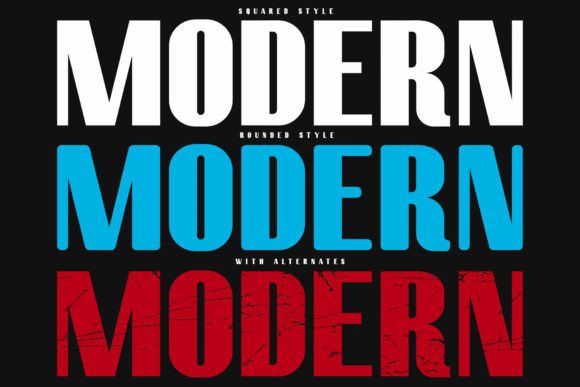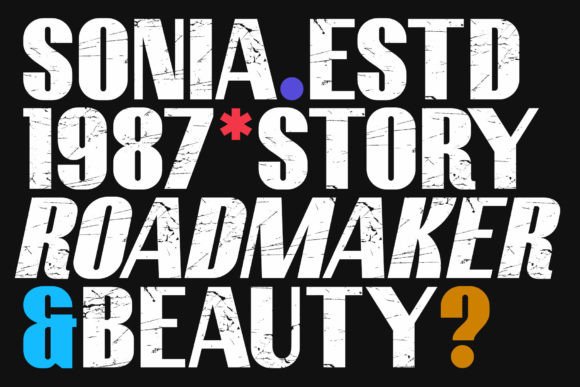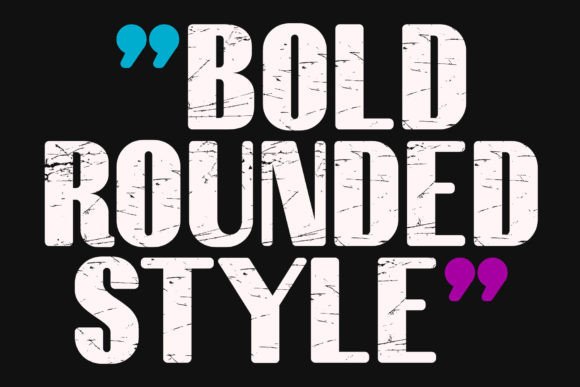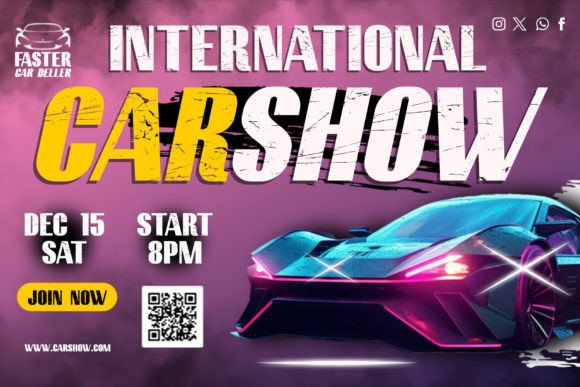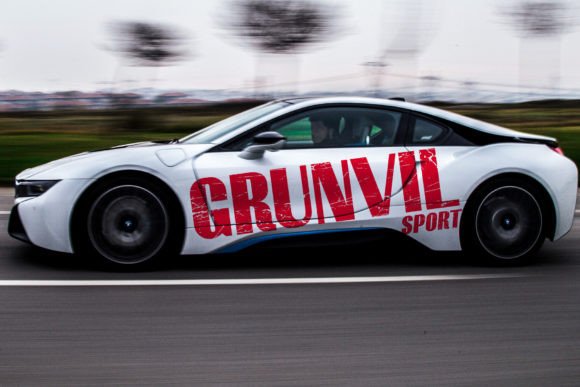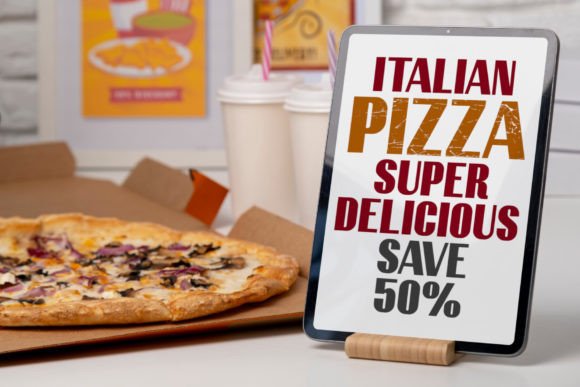
Introduction to Grunvil Font
Remember the rush of excitement when you finally find that perfect font to elevate your creative project? It’s like stumbling upon a hidden treasure, isn’t it? For designers, the search for the ideal typography can be a long and arduous journey. But what if I told you that the wait is over? Introducing the Grunvil Font – a game-changing, modern bold sans with a gritty, grunge twist that’s sure to make your designs stand out.
As a valuable resource for designers, the Grunvil Font offers a unique combination of high-quality typography and versatility. Its bold, solid letters command attention, while its grunge alternate style adds a raw, urban touch. Whether you’re working on a streetwear brand, a music album cover, or an event poster, the Grunvil Font adapts seamlessly to your design needs.
What sets the Grunvil Font apart is its balance of boldness and readability. With a clear and transparent background, this font is perfect for designers who want to make a statement without sacrificing clarity. And the best part? It’s available for free download, making it an essential addition to any design resource library.
Key Features of Grunvil Font
- Unique, modern font style suitable for various design applications
- Includes 100 glyphs, with 4 different font weights (Light, Regular, Bold, Black)
Honest Review: Grunvil Font
As a designer, I’m always on the lookout for high-quality design resources that can elevate my creative projects. The Grunvil Font is one such resource that caught my attention, and I’m excited to share my honest review with you.
What works well: ✨ The Grunvil Font has a clean and modern design aesthetic that works well for a variety of creative projects, from digital products to print materials. The font is highly customizable, with a transparent background that makes it easy to use on any background.
Here are some of the key features that I like about the Grunvil Font:
- Transparent background for easy use on any background
- Customizable with various font sizes and styles
Limitations: ⚠️ While the Grunvil Font is an excellent resource, it’s not without its limitations. The font may not be suitable for use in situations where a more traditional or serif font is required.
Overall, I’m impressed with the Grunvil Font and would definitely recommend it to designers looking for a high-quality, customizable font for their creative projects. With its clean design and transparent background, it’s an excellent choice for designers who want to elevate their work.
Tips for Getting the Most Out of Grunvil Font
For optimal results, use the Grunvil Font with a transparent background and pair it with a contrasting color scheme. Experiment with different font sizes and styles to find the perfect fit for your creative project.
The Grunvil Font is ideal for various design projects, including logos, business cards, brochures, and social media graphics. Its versatility and stylish typography make it a popular choice among designers and creatives.